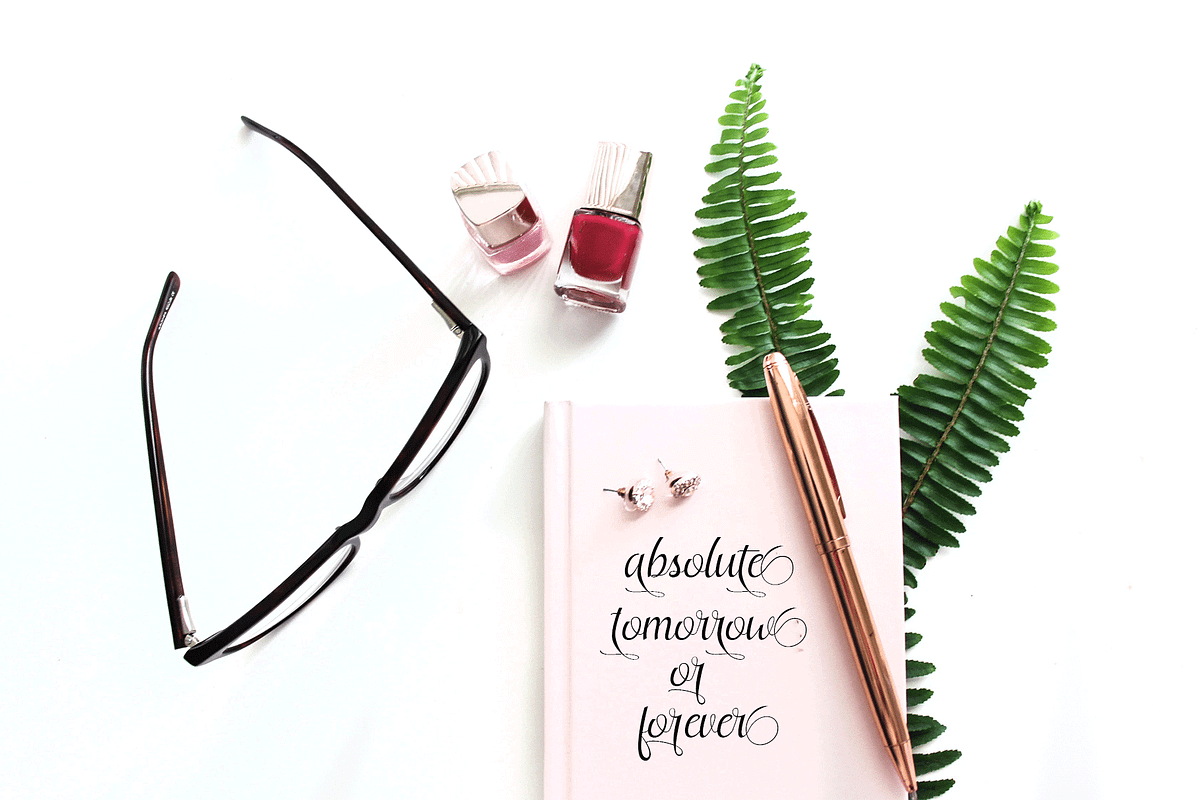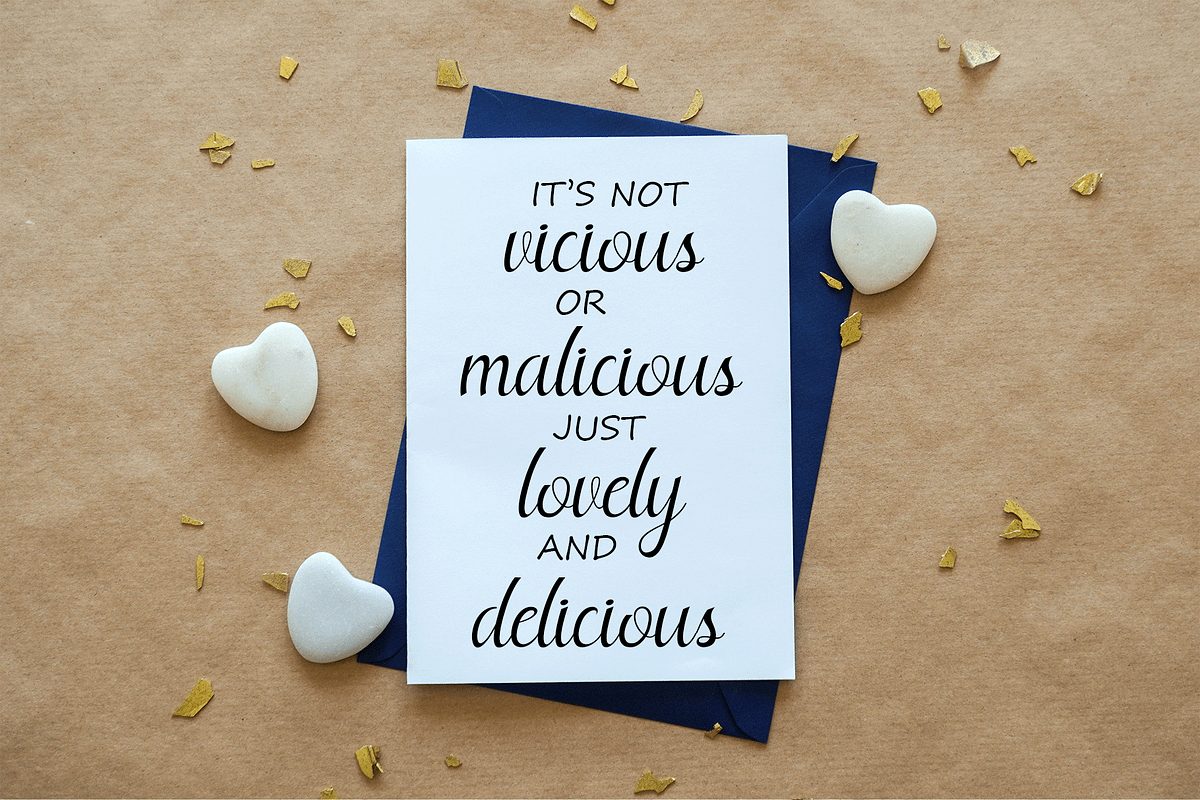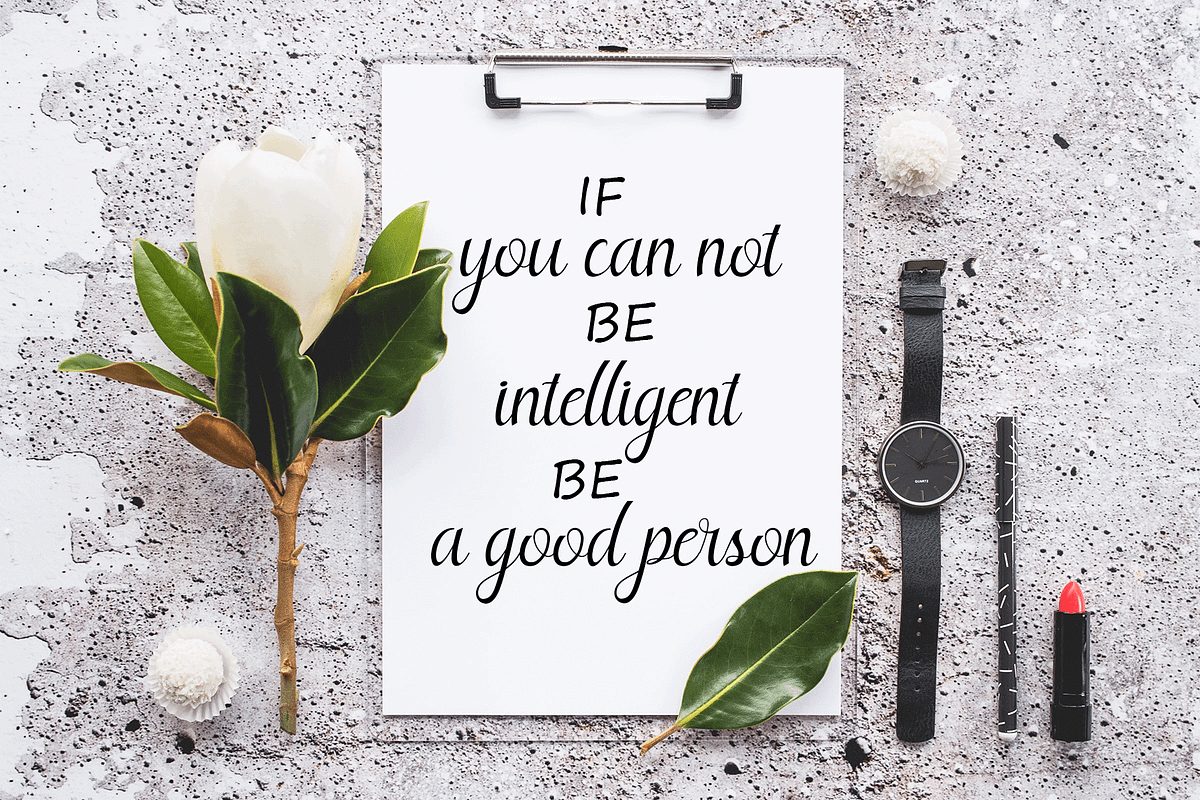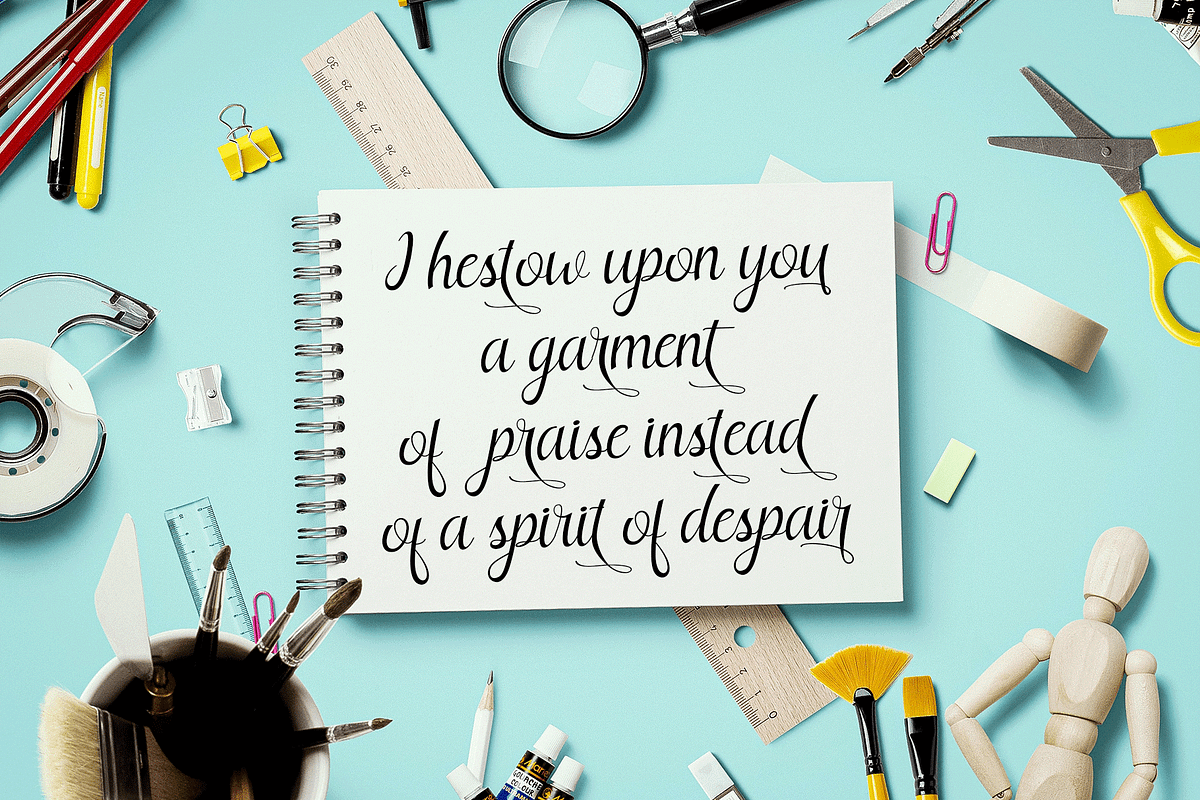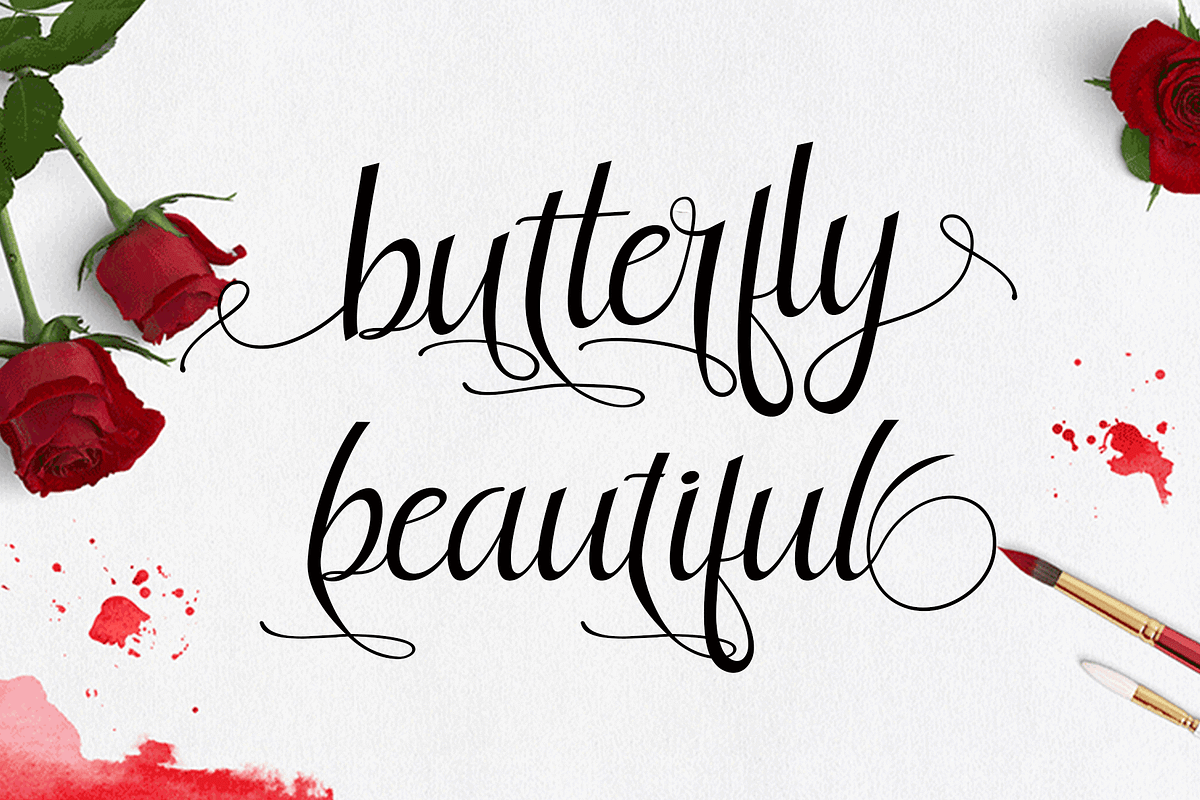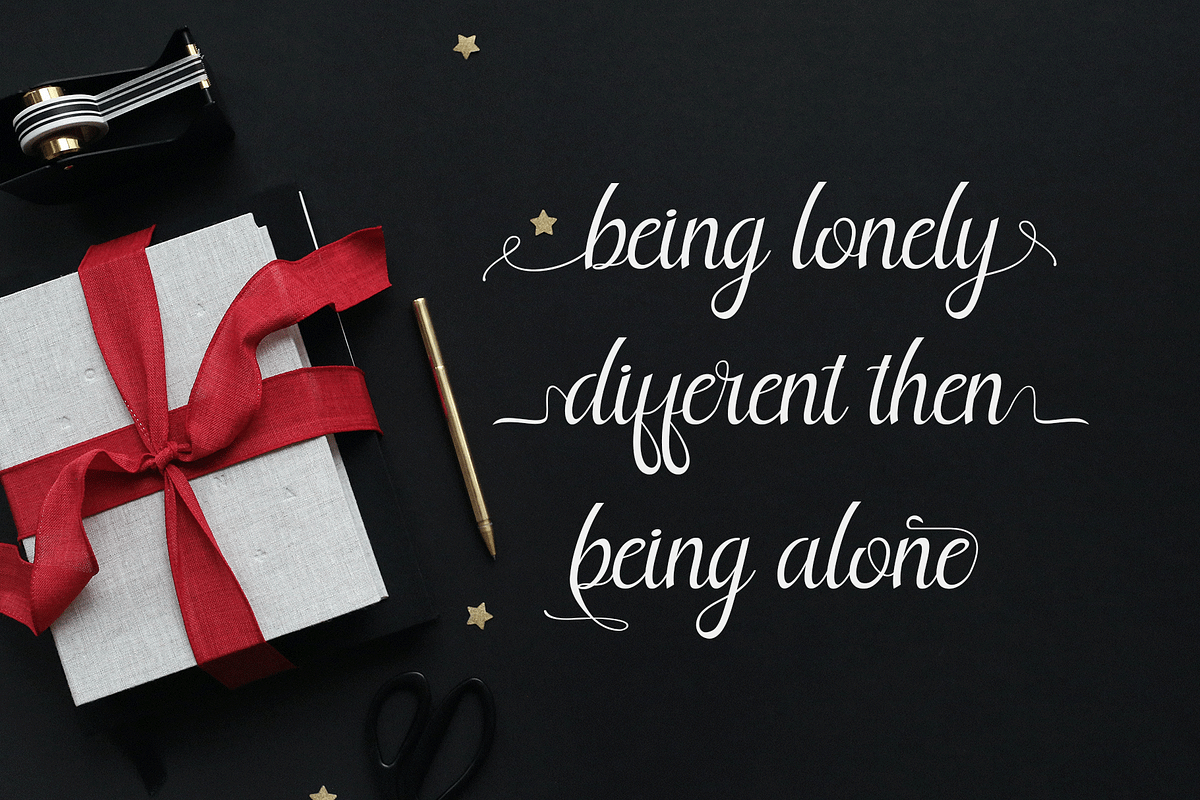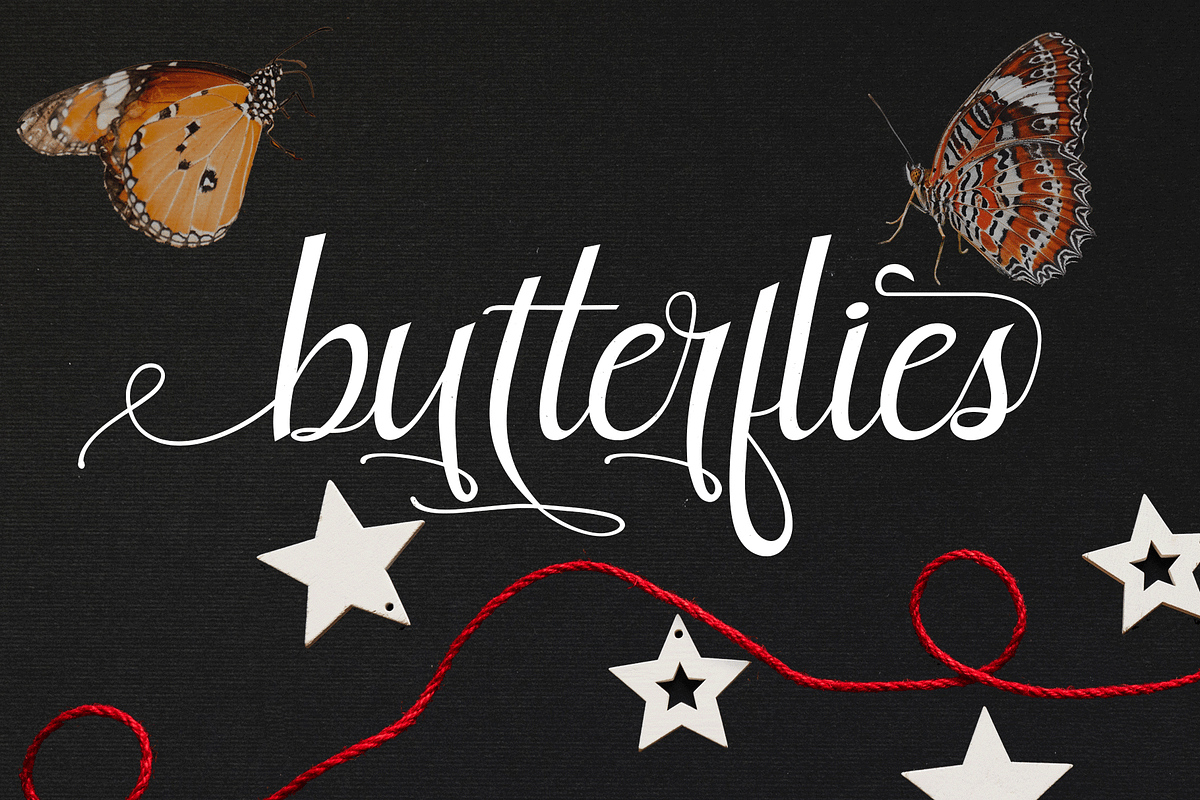
butterfly beautiful
Butterfly beautiful, a work that is purely handwritten, has natural characteristics. It's perfect for invitations, signatures, blogs, social media, business cards, product brands.
Butterfly beautiful is a simple font that has Stylistic standards, Stylistic Alternatives. and includes uppercase and lowercase letters, numbers and punctuation.